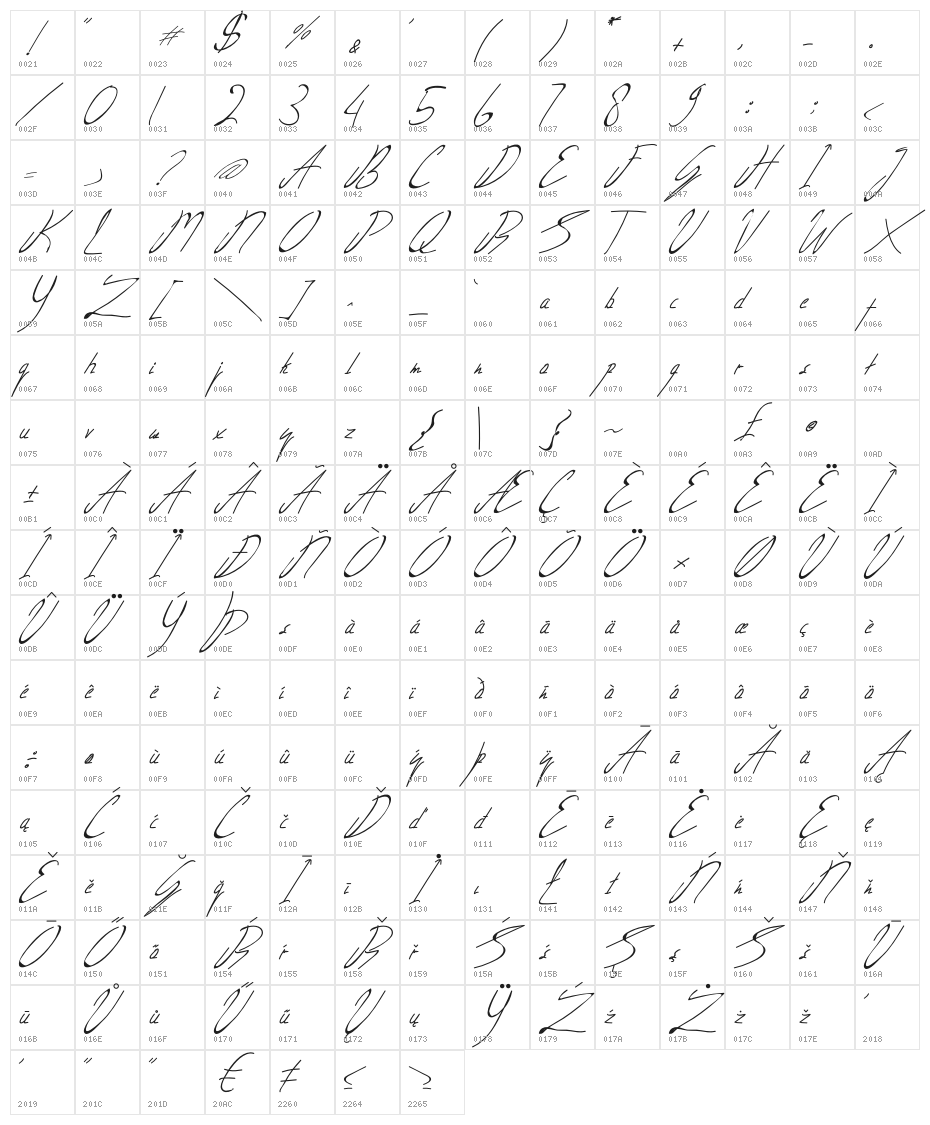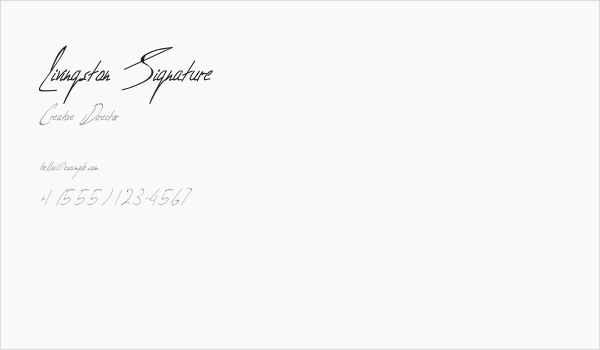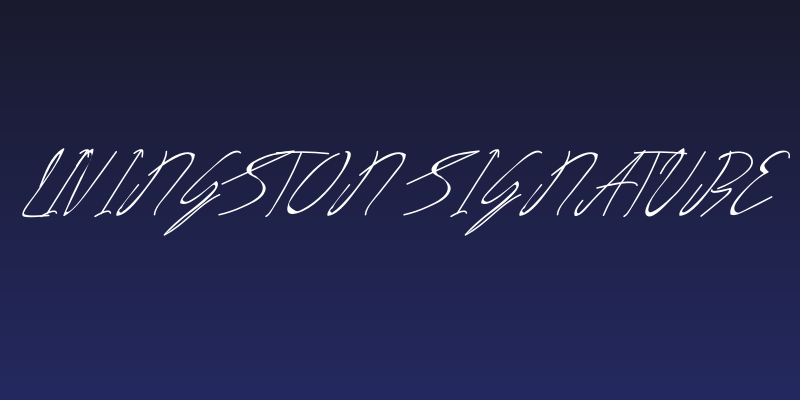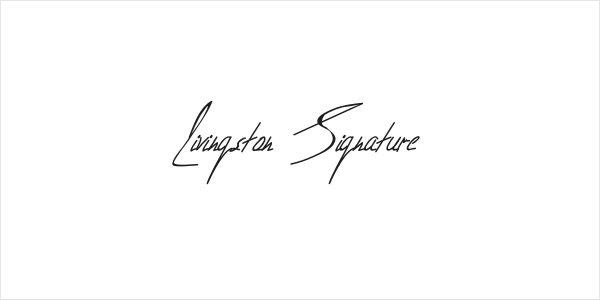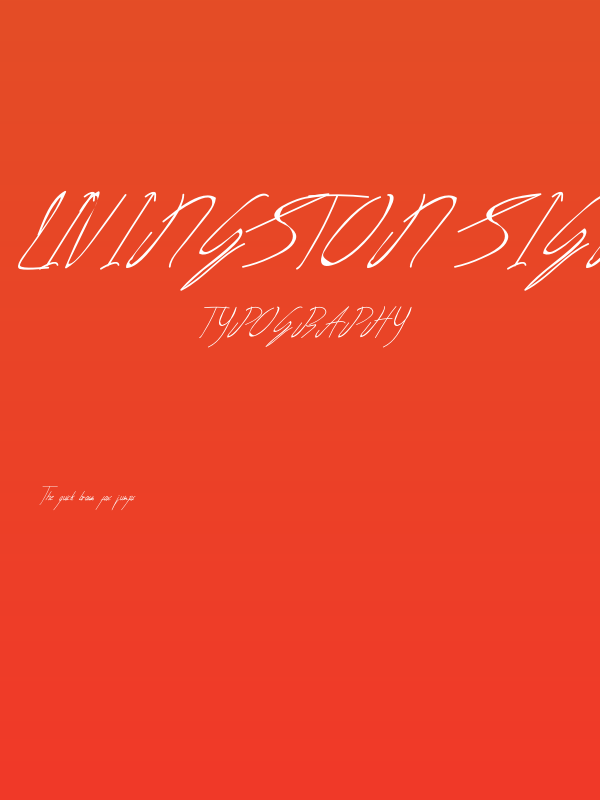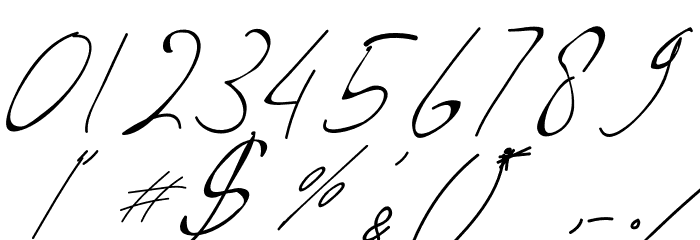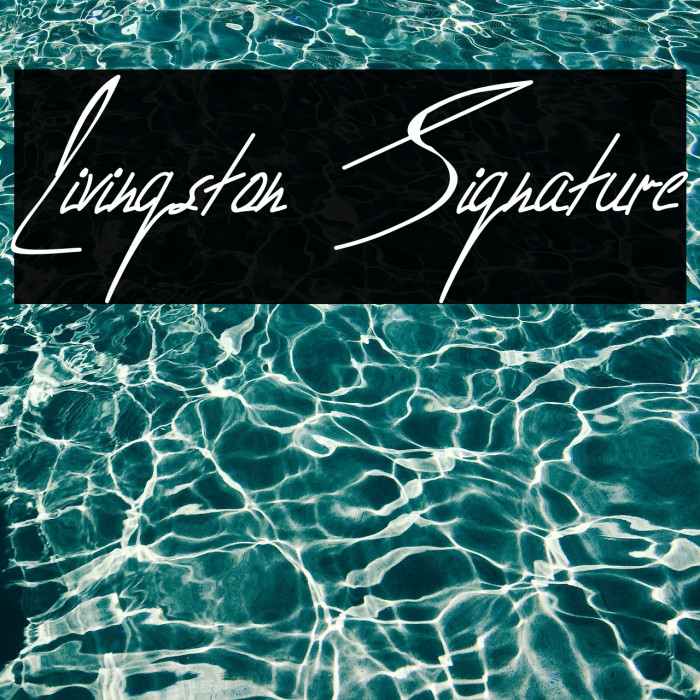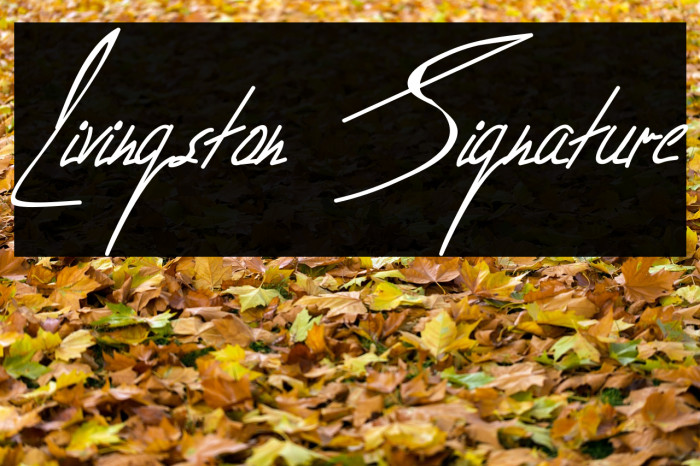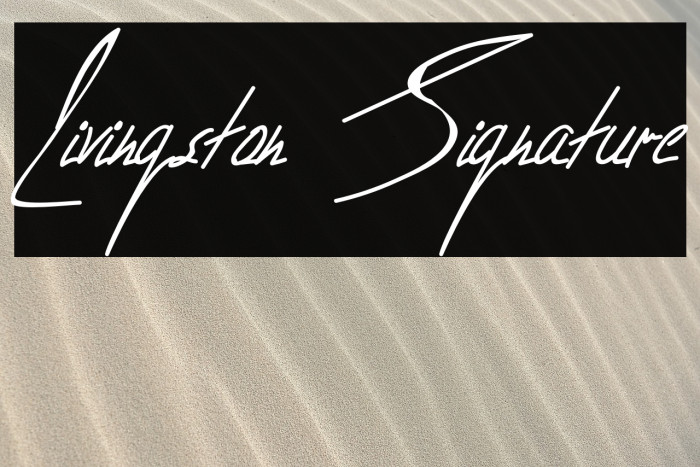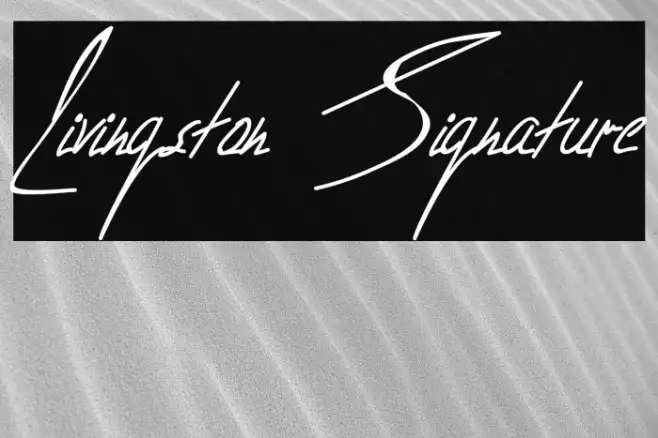
Livingston Signature Font
Livingston Signature Description
This font exudes a sophisticated and elegant handwritten style, reminiscent of a personal signature. The characters are fluid and connected, with a natural flow that mimics cursive handwriting. The uppercase letters are slightly more formal, maintaining a consistent height, while the lowercase letters are more varied, adding a touch of personality and flair. The numbers and special characters maintain the same fluidity, ensuring a cohesive look across all elements. The strokes are thin and delicate, providing a sense of grace and refinement. This font would be ideal for projects that require a personal touch, such as invitations, greeting cards, or branding materials that aim to convey elegance and sophistication.
| Proposed Projects | Ideal for invitations, greeting cards, personal branding, and elegant logos. |